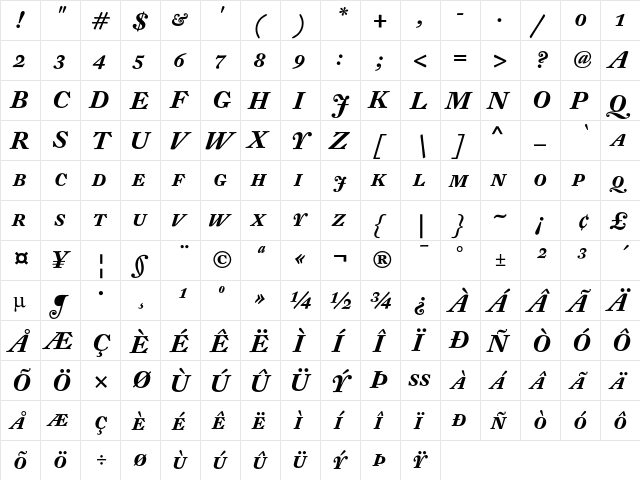
DTL Fleischmann D Caps Bold Italic
Design Context for DTL Fleischmann Typeface
DTL Fleischmann is a composed and adaptable typeface that performs quietly and consistently across a wide range of design contexts. The dynamic lean of this cut emphasises speed and emphasis in any layout. Its bold stroke weight gives it real presence on the page.
Pro Tip: Use DTL Fleischmann for emphasis, pull quotes, and subheadings where its slanted energy can add rhythm to the layout.